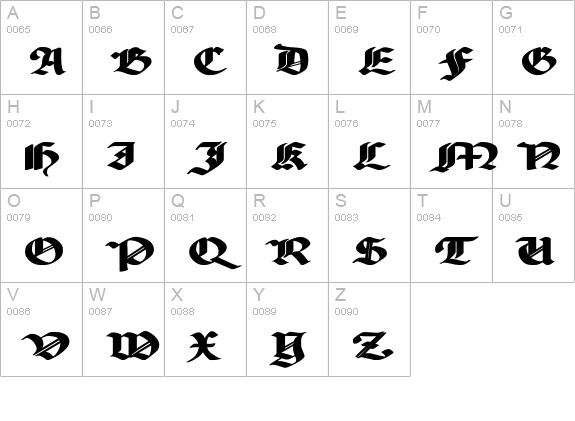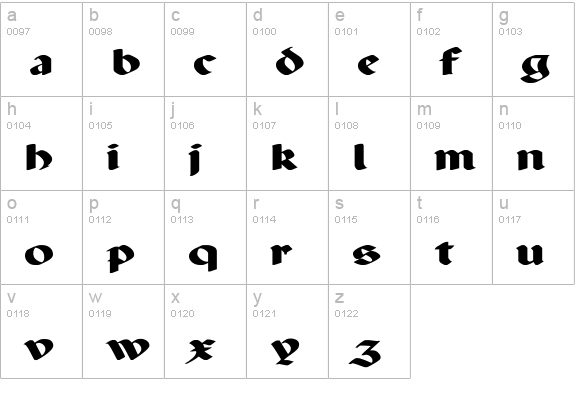
Paganini Wd Bold Font Details
Paganini Wd Bold is a strong, high-contrast variant in the Paganini typeface family \xE2\x80\x94 well suited to headlines, attention-grabbing titles, and strong calls-to-action.
Paganini Wd Bold is a beautifully crafted font that exudes elegance and sophistication. Its bold and strong letterforms make a powerful statement, perfect for headlines, titles, and branding projects. With its unique and intricate design, this font captures attention and adds a touch of refinement to any visual composition. One of the best things about Paganini Wd Bold is that it is freely available to download at FontsMarket.com. This means that you can enjoy the beauty and versatility of this font without having to spend a dime. Whether you're a professional designer or a creative enthusiast, having access to high-quality fonts like Paganini Wd Bold can greatly enhance your projects and elevate your designs to the next level. The versatility of Paganini Wd Bold is truly impressive. It can be used in a wide range of design applications, from print materials such as posters, brochures, and business cards, to digital platforms like websites, social media graphics, and presentations. Its bold and eye-catching appearance ensures that your message will be easily noticed and remembered by your audience. Not only does Paganini Wd Bold offer aesthetic appeal, but it also provides excellent legibility. Each letter is meticulously designed, ensuring that every character is easily distinguishable. This makes it a practical choice for body text as well, allowing for comfortable reading experiences across various mediums. So why wait? Download Paganini Wd Bold today for free at FontsMarket.com and discover the endless possibilities this font has to offer. Whether you're looking to make a bold statement or add a touch of elegance to your designs, Paganini Wd Bold is the perfect choice.